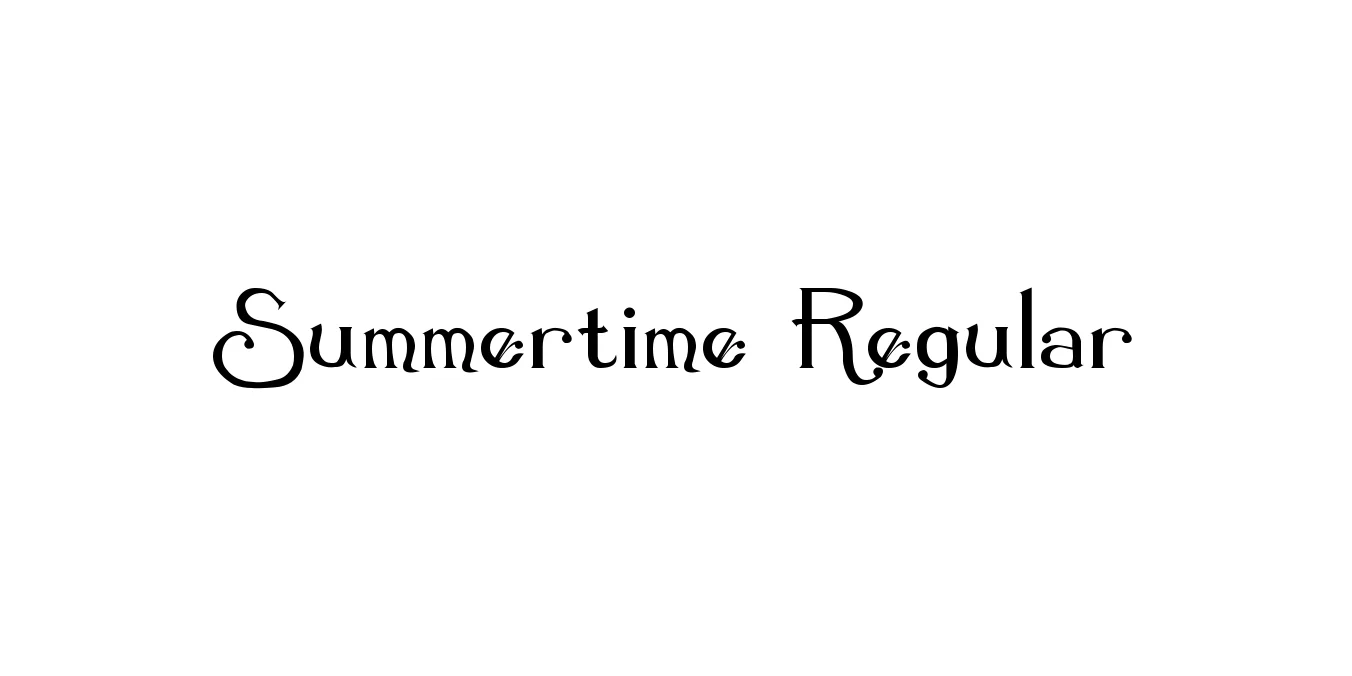
Summertime Regular
Summertime Regular is a vibrant and cheerful typeface designed to capture the essence of the sunny season. Created with a flowing, handwritten aesthetic, it features smooth curves and a playful rhythm that makes it ideal for projects requiring a personal, friendly touch. The font's letterforms are carefully balanced to ensure readability while maintaining a distinct artisanal quality that stands out in both digital and print media.
Originally released to offer a sense of warmth and authenticity, Summertime Regular has become a favorite for lifestyle branding and social media graphics. Its versatile nature allows it to transition seamlessly from casual greeting cards to sophisticated packaging designs. The font provides designers with the tools to create cohesive and engaging visual stories that resonate with audiences looking for a natural, hand-crafted look.
Summertime Regular Best Uses
Creating engaging Instagram quotes and stories with a personal touch.
Perfect for summer wedding invites, birthday cards, and party flyers.
Ideal for lifestyle brands, organic products, and boutique logos.
Using as a header font for travel blogs or summer-themed websites.